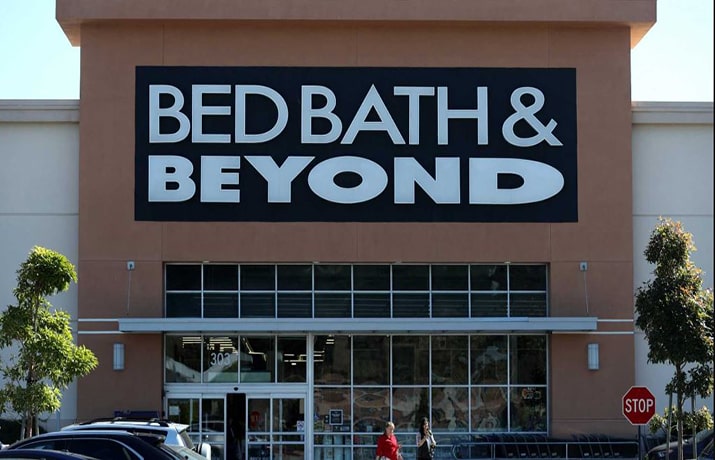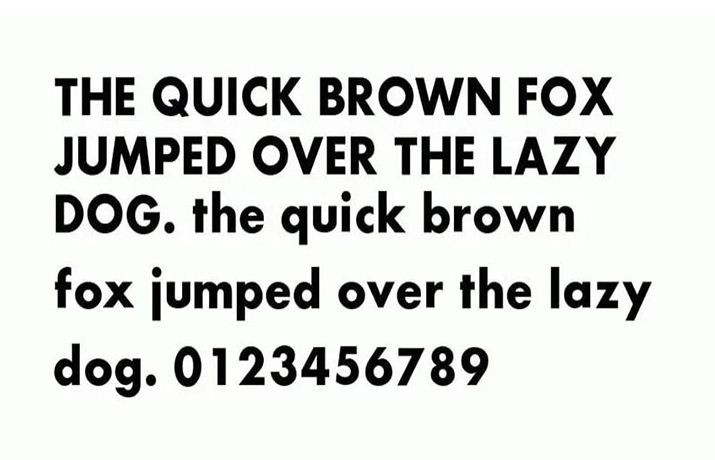
Bed Bath & Beyond Logo Font! It is an American chain of domestic merchandise retail stores. The chain operates many stores in the United States, Canada, Mexico, and Puerto Rico.
It was founded in 1971 by two individuals including Warren Eisenberg and Leonard Feinstein. As of the 2017 survey, the company has a total worth of US$7.041 billion and annual revenue of US$761.3 million.
As such, it is included in the Forbes Global 2000 list, which means it becomes part of the top 2000 public companies. Hence, it has a great reputation worldwide.
Various designers around the world want to work with the typeface used in its logo. So, today we’ll show you the exact font family you see in the logo.
Font Name:Futura font Family
Style:Display, Fancy, Typeface
Font Designer:Paul Renner
Along with its neat and clean appearance, the Futura font can be used for logos, book composing, fabric printing, banner design, official cards, brochure layouts, t-shirts, design of banners, business cards, brochures, weddings as well as many other places.
It’s called the Futura font family, one of the great sans serifs of all time. It was first designed and released by Paul Rayner in 1927.
Many font designers then contribute their services and add weight to this typeface. So, now this beautiful font is available in 22 weights.